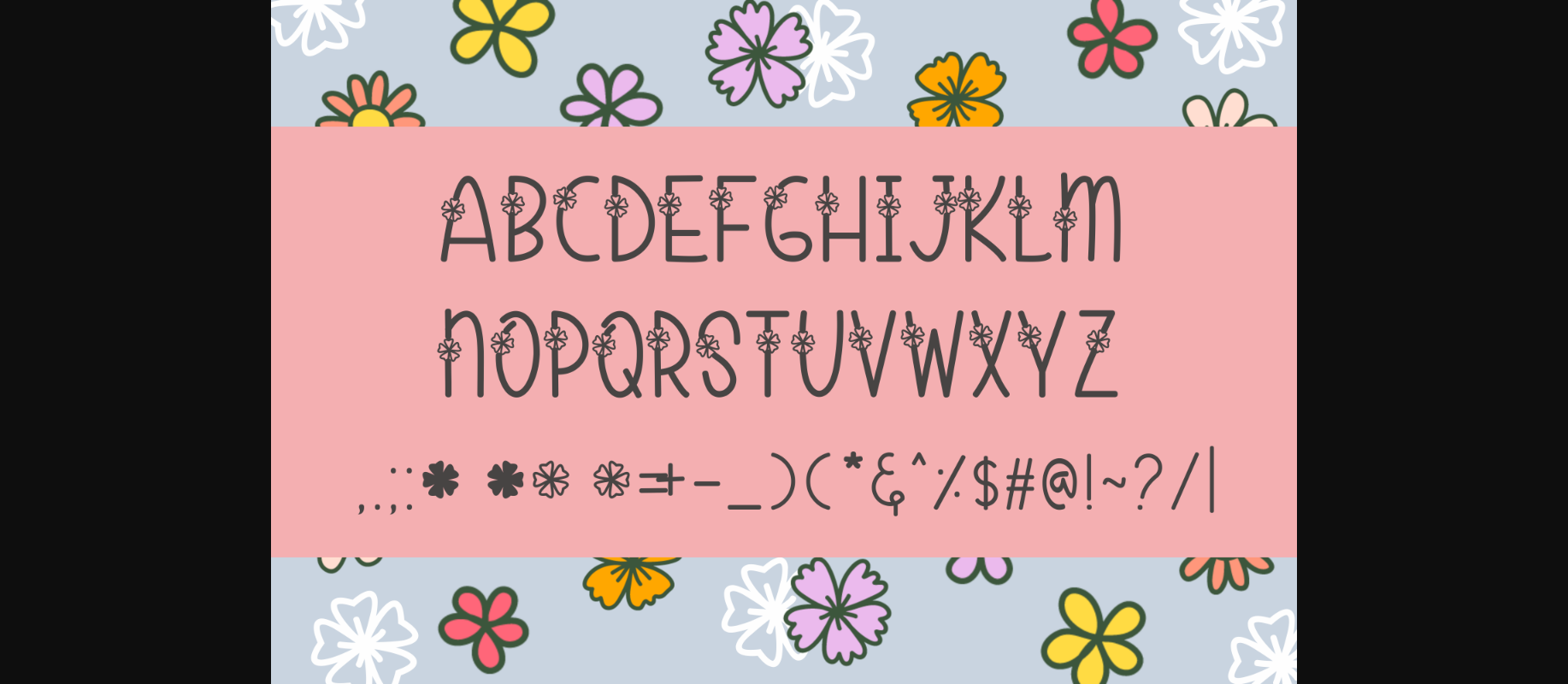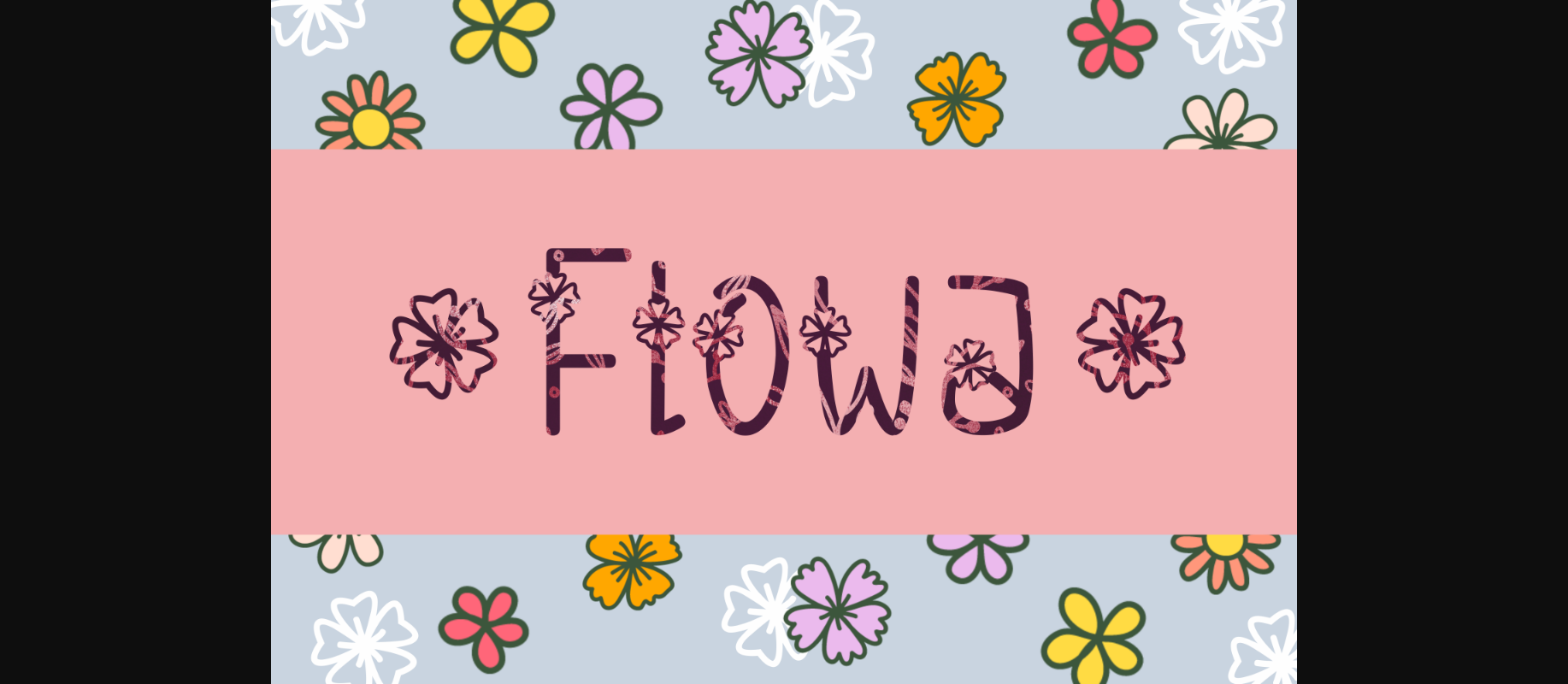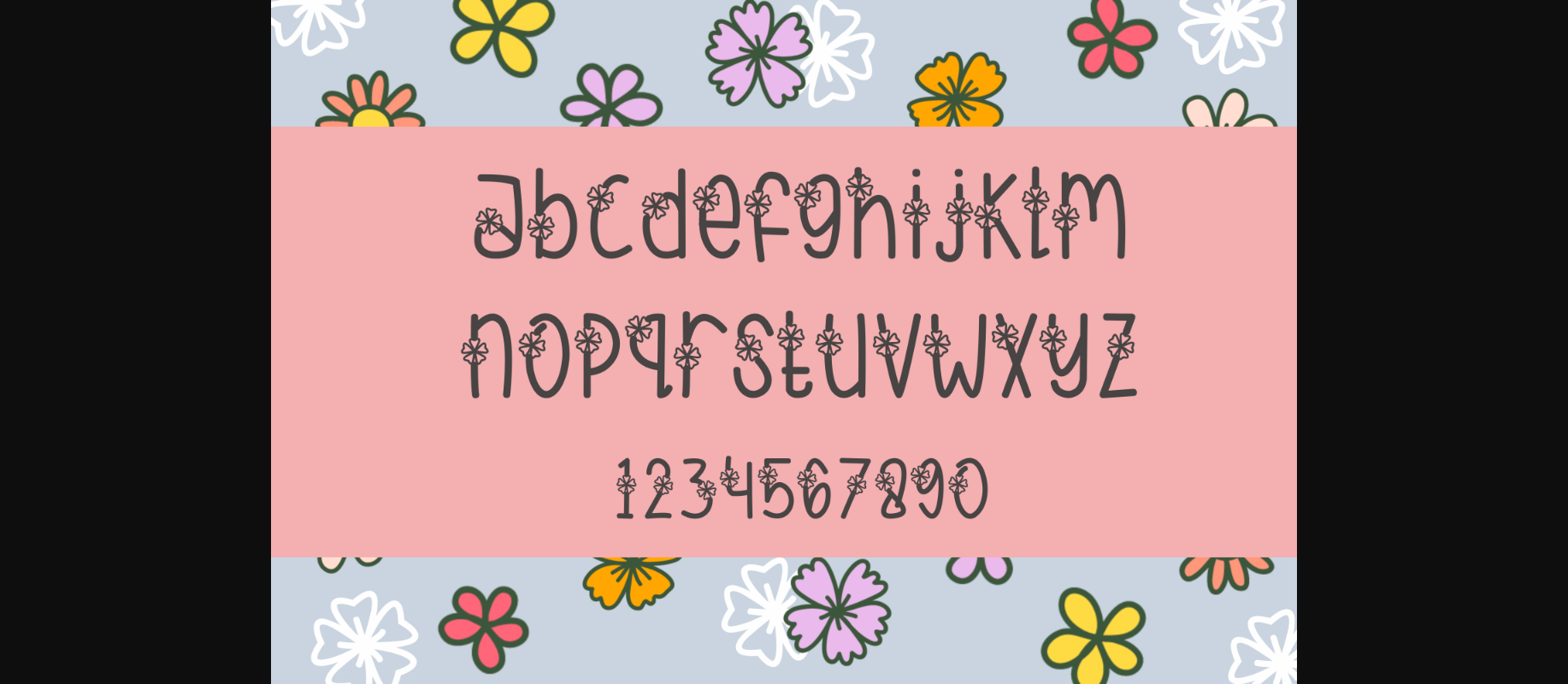
About Flowa Font
Flowa is an incredibly unique and interesting decorative font, featuring flower ornaments. Fall in love with its simple yet distinct style, and create spectacular designs!